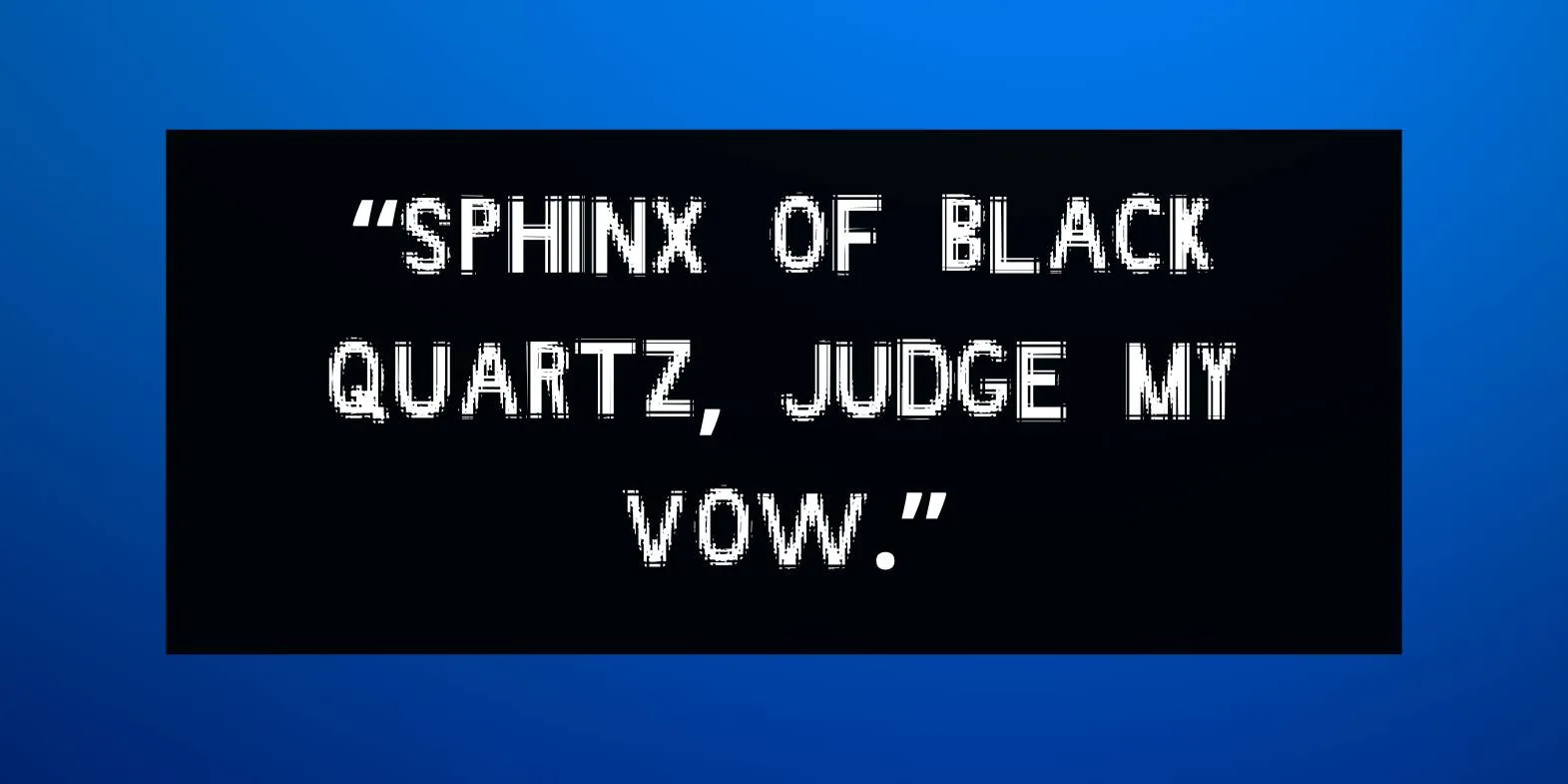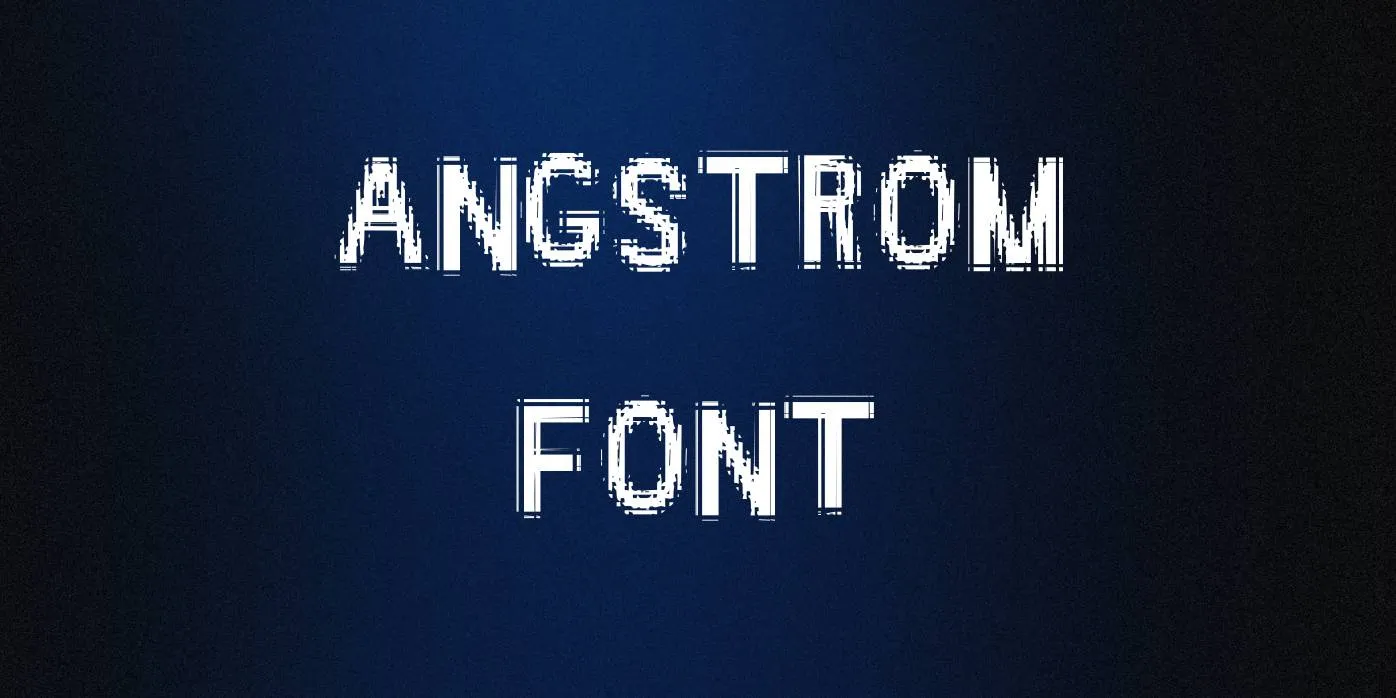
Angstrom Font
Angstrom Font is a fancy typeface designed by Divide by Zero. The characters of this typeface are bold and blurry. It is available in Truetype and Opentype file format. If you are interested in only downloading the font then scroll down.